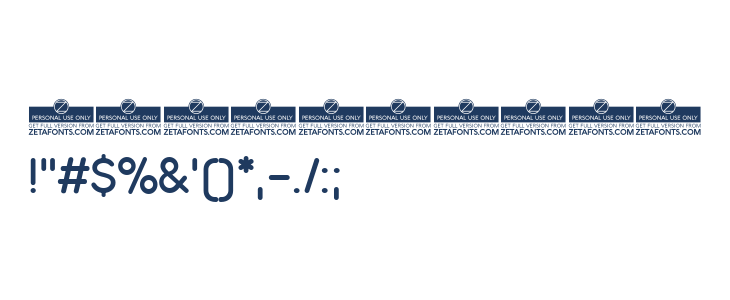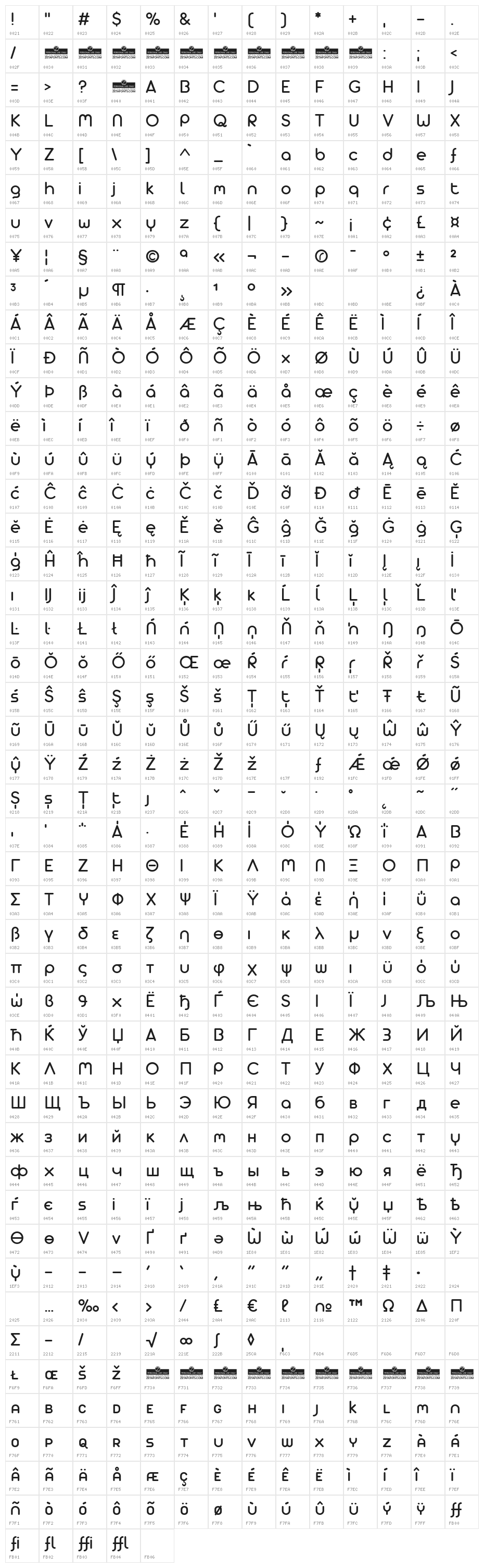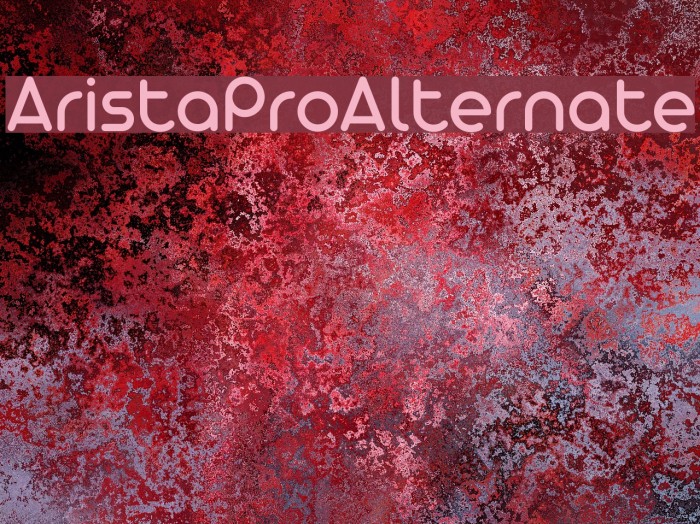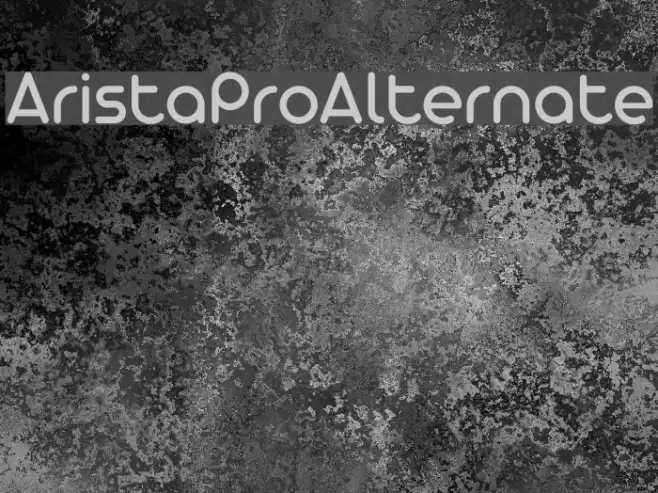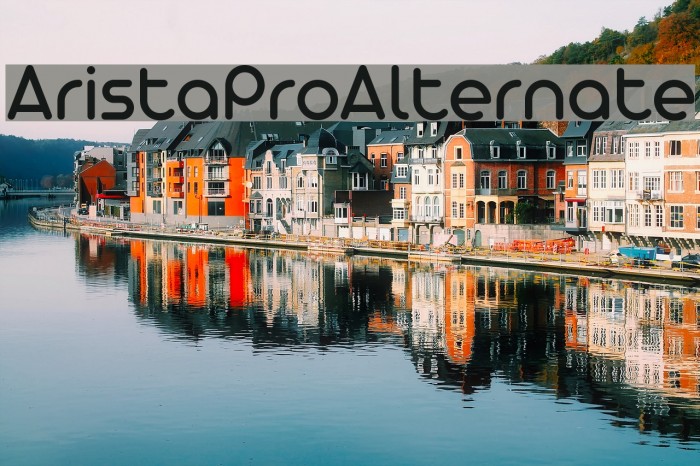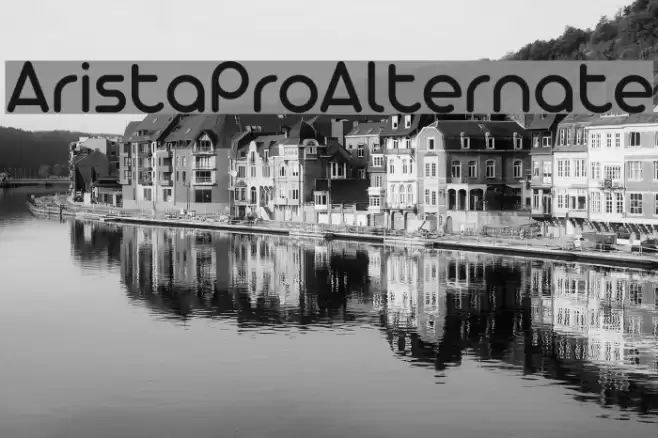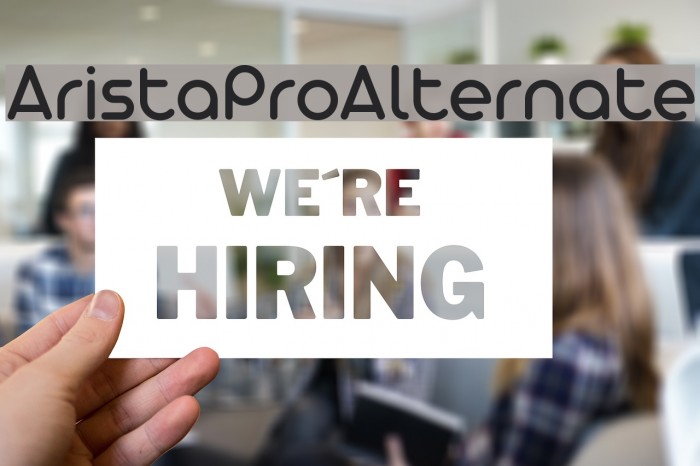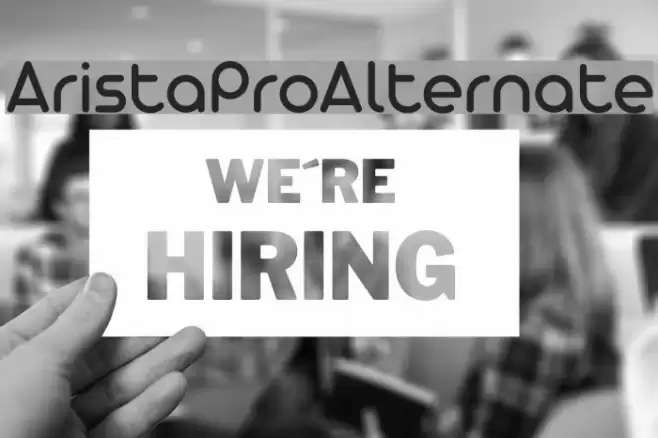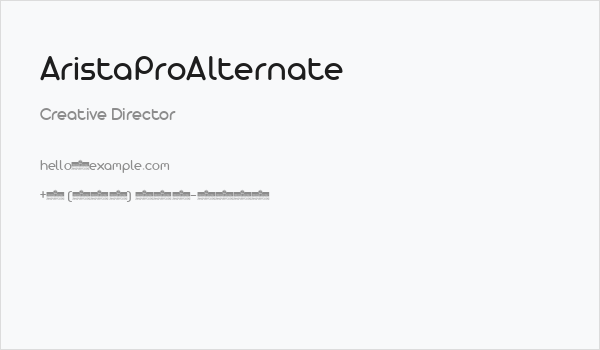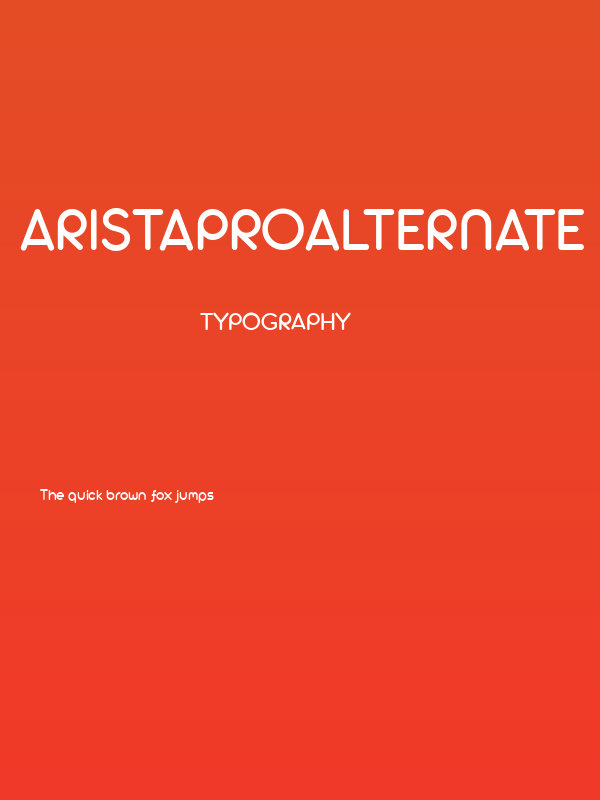
AristaProAlternate Font
AristaProAlternate Description
This font features a clean, rounded sans-serif style with a modern and friendly appearance. The characters are evenly spaced, with a consistent stroke width that gives it a uniform look. The rounded edges of each letter contribute to its approachable and soft aesthetic, making it suitable for a variety of design applications. The lowercase letters maintain a similar height to the uppercase, enhancing readability and balance. Special characters and numbers are designed to match the overall style, ensuring cohesion across different text elements.
Proposed ProjectsIdeal for branding, advertising, children's books, and digital interfaces due to its clean and friendly appearance.